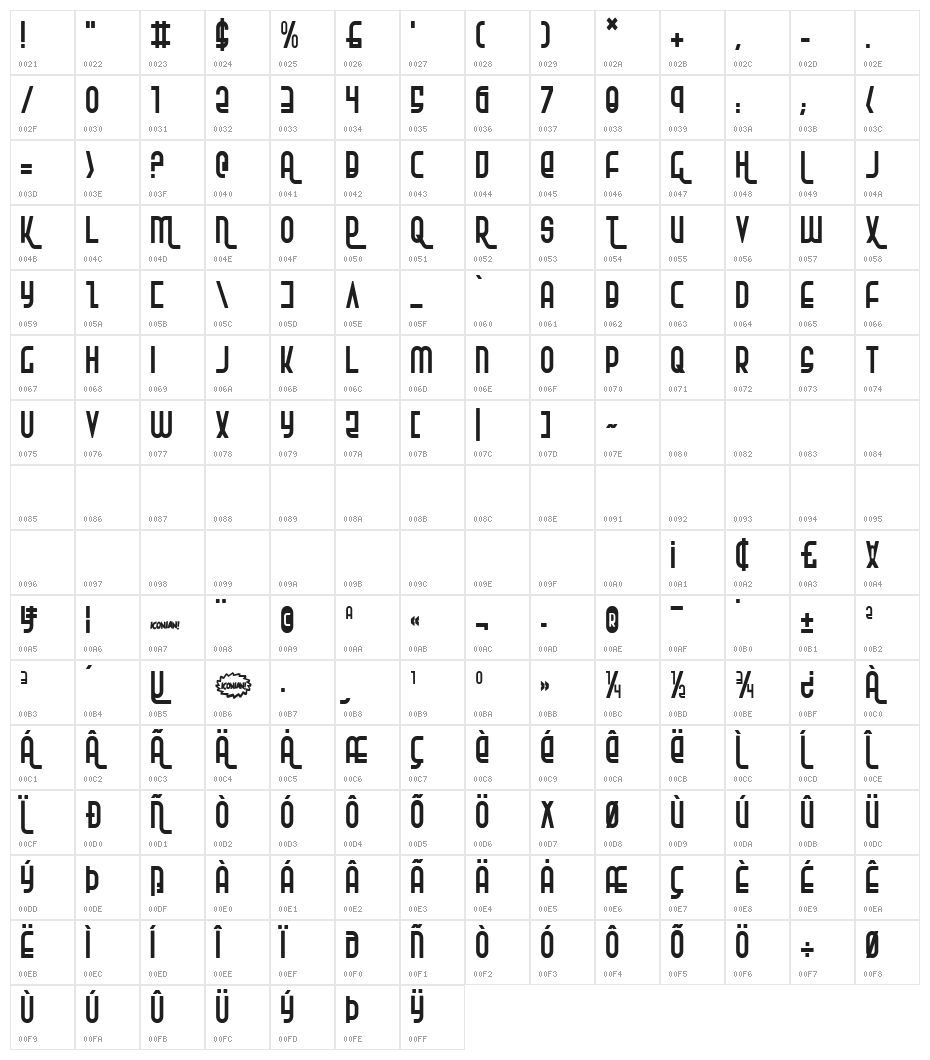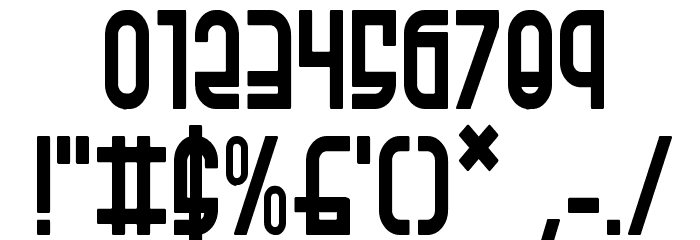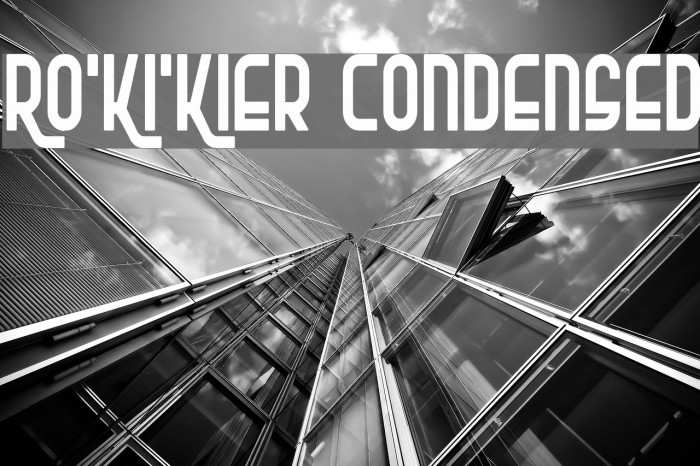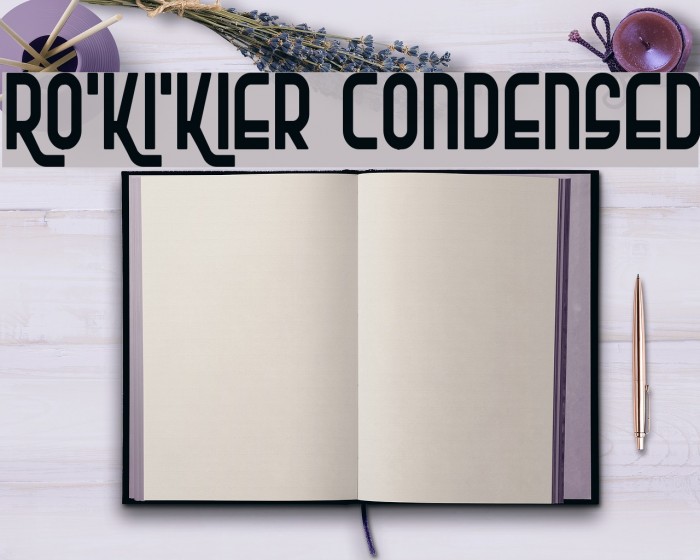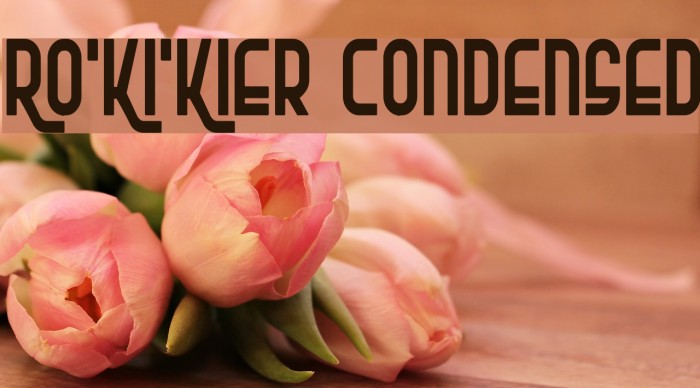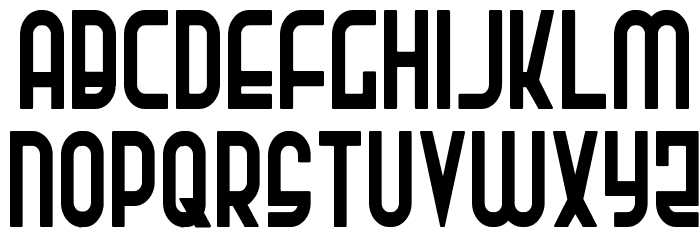
Ro'Ki'Kier Condensed Font
Ro'Ki'Kier Condensed Description
This font features a bold, geometric design with a condensed structure, emphasizing verticality and uniformity. The characters are constructed with thick, consistent strokes, giving them a strong presence. The rounded corners soften the overall look, adding a modern touch to the otherwise industrial feel. The uppercase and lowercase letters maintain a cohesive style, with the uppercase being more prominent. Numerals and special characters follow the same design principles, ensuring a harmonious appearance across all text elements. The font's condensed nature makes it suitable for space-saving applications while retaining readability.